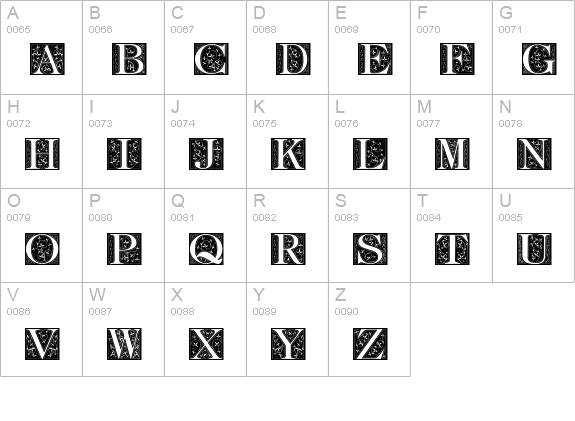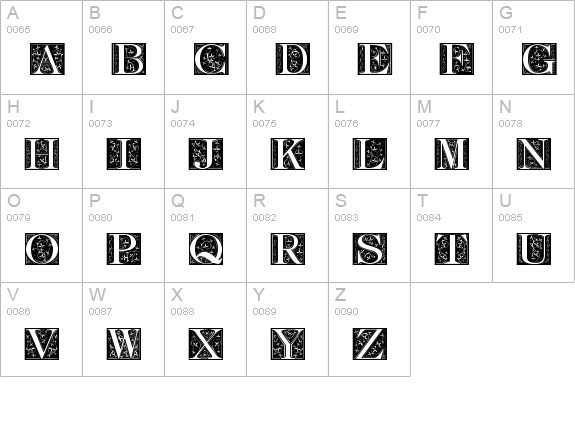
FleurCornerCaps Font Details
FleurCornerCaps font is an elegant and versatile typeface that exudes sophistication and charm. With its delicate floral-inspired details and graceful curves, this font is perfect for adding a touch of whimsy to your projects. The decorative corner caps add a unique and stylish flair to any design, making it stand out from the crowd. FleurCornerCaps font is ideal for invitations, greeting cards, branding, and more. Best of all, FleurCornerCaps font is completely free to download at FontsMarket.com. This means you can easily access this beautiful typeface and incorporate it into your creative projects without any cost. Don't miss out on the opportunity to enhance your designs with the enchanting FleurCornerCaps font today!